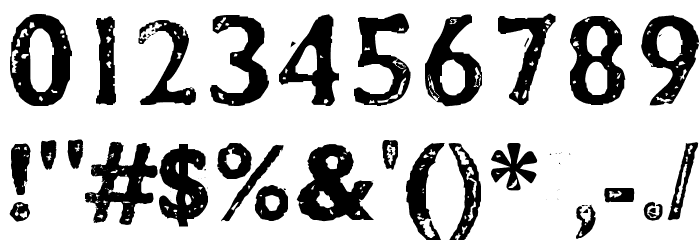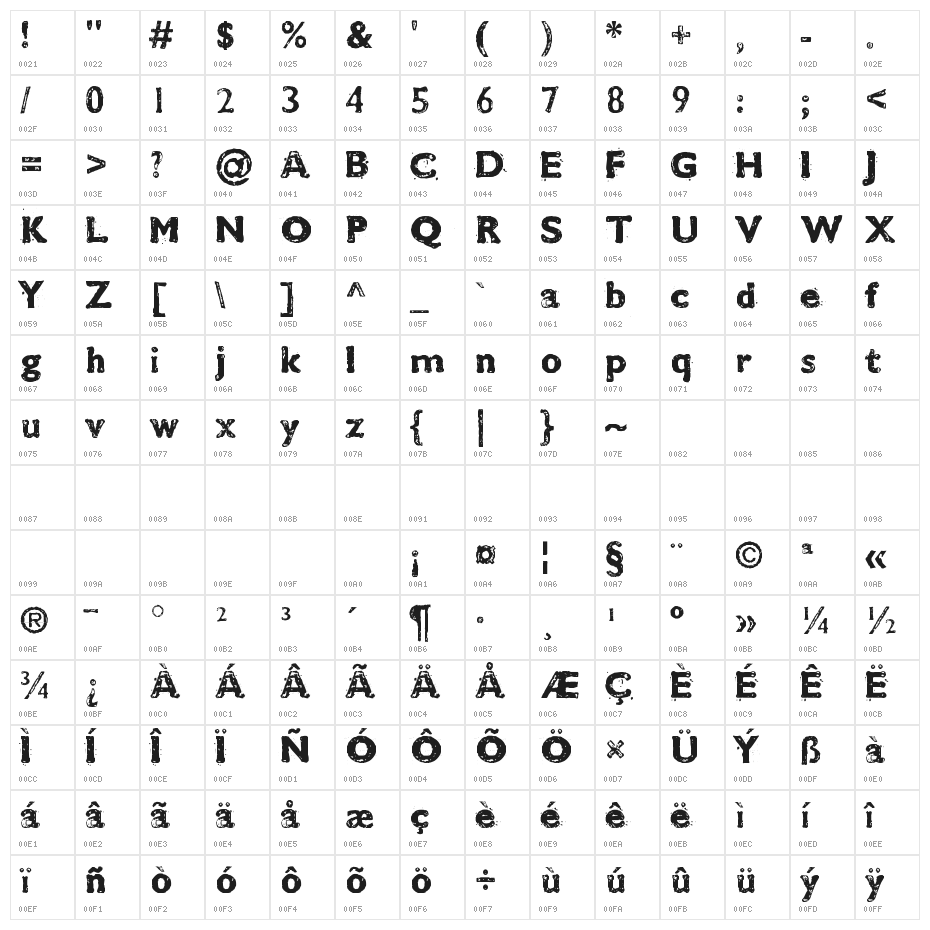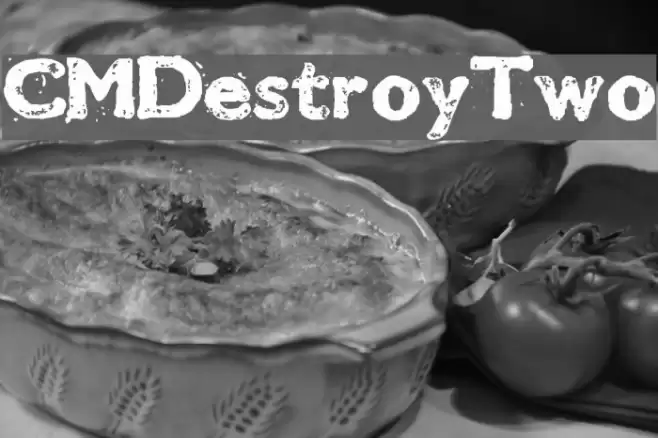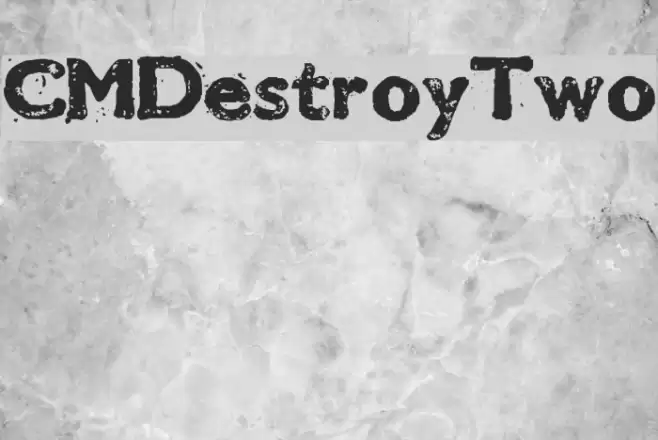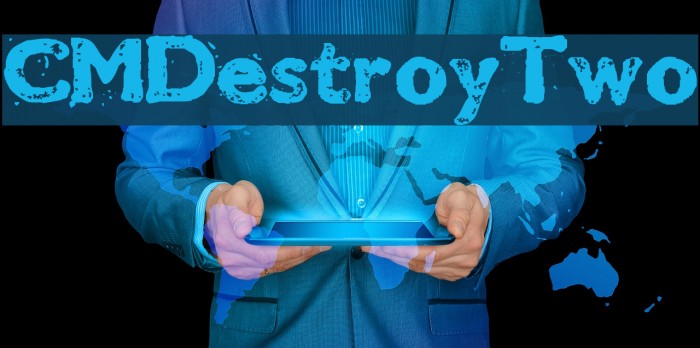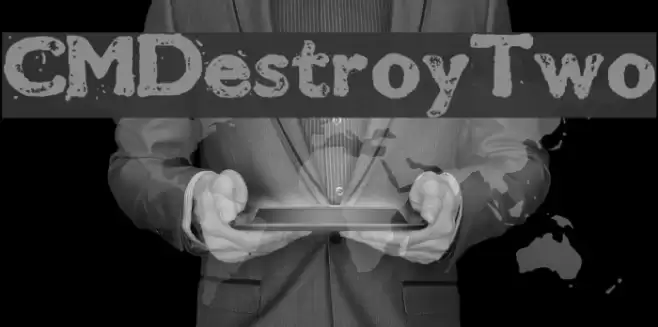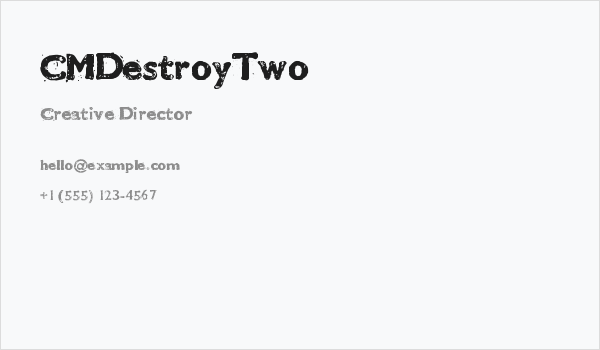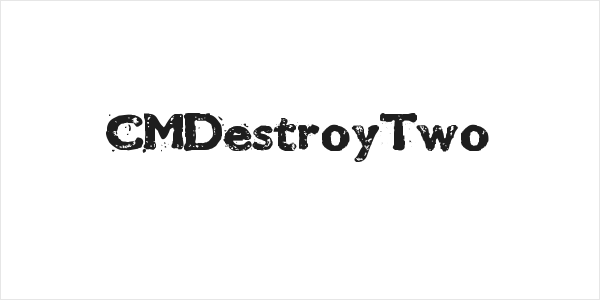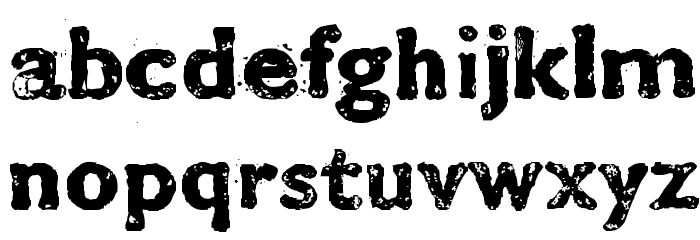
CMDestroyTwo Font
CMDestroyTwo Description
This font features a distressed, grunge style with a bold and rugged appearance. The characters are heavily textured, giving them a worn and weathered look, which adds a sense of depth and character. The uppercase and lowercase letters maintain a consistent style, with slightly irregular edges that enhance the overall distressed effect. The numbers and special characters follow the same design, ensuring uniformity across all glyphs. This font is ideal for projects that require a raw, edgy aesthetic, such as music album covers, posters, or any design that aims to convey a sense of rebellion or nonconformity.
Overall StyleGrunge, Distressed
Use CaseLogos, Posters, Headlines
Proposed ProjectsIdeal for music album covers, posters, and rebellious-themed designs.